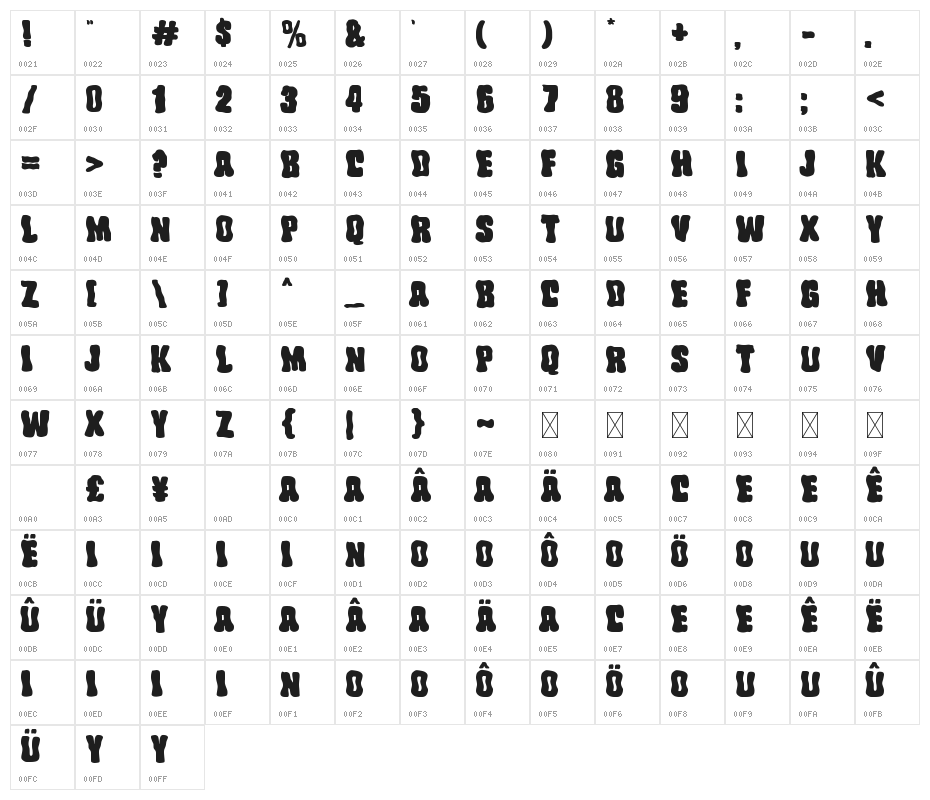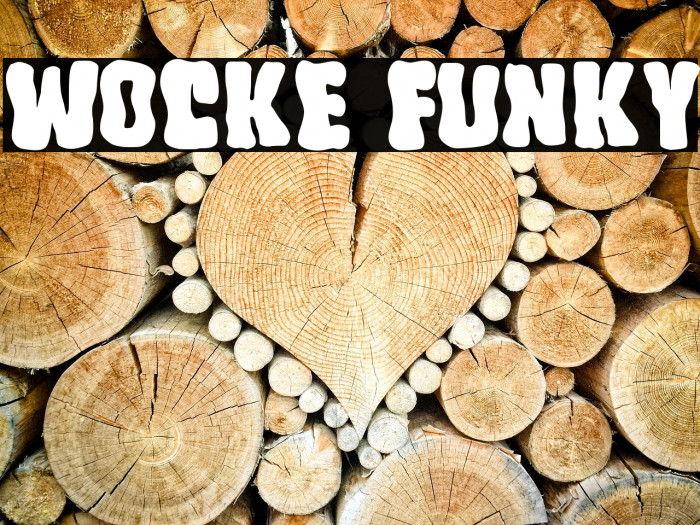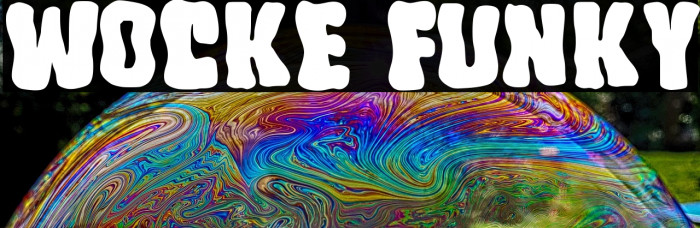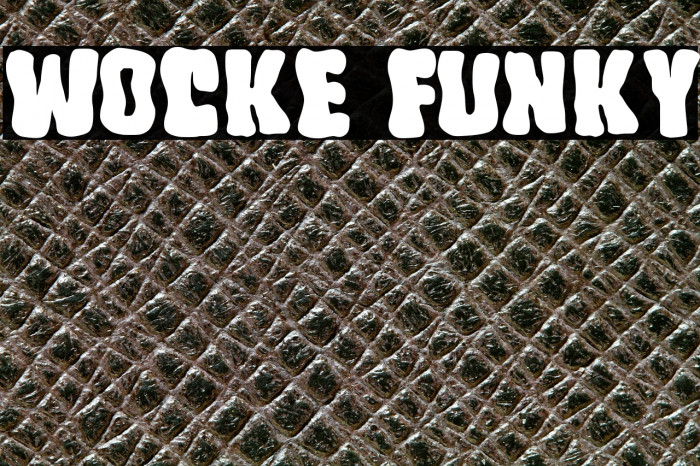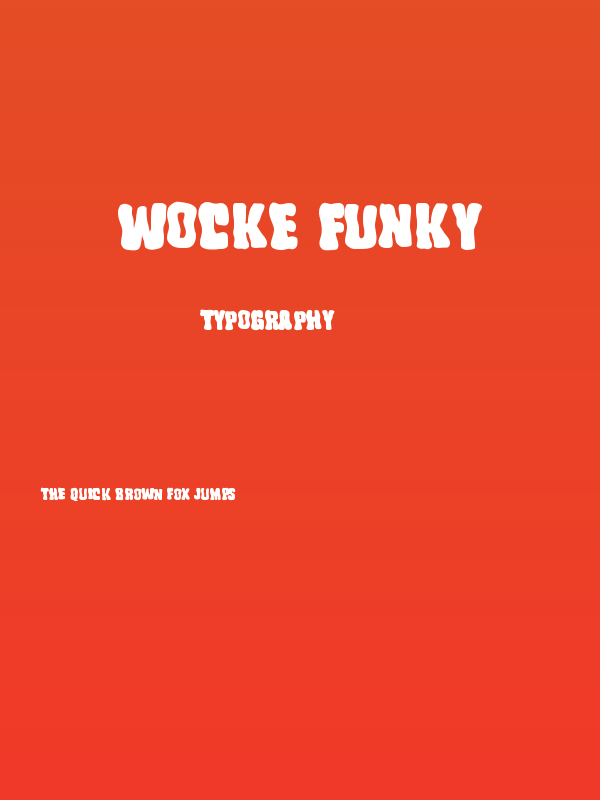
Wocke Funky Font
Wocke Funky Description
This font exhibits a bold and playful design, characterized by its thick, rounded shapes and irregular contours. The letters have a whimsical, almost cartoonish appearance, making them stand out with a strong visual presence. The strokes are consistently thick, providing a uniform weight across all characters. The overall style is reminiscent of retro or vintage designs, with a touch of modern flair. The font's unique and quirky nature makes it ideal for projects that require a fun and engaging look. Its boldness ensures readability while adding a distinctive personality to any text.
| Overall Style | Playful, Retro, Modern |
| Proposed Projects | Ideal for posters, children's books, playful branding, and retro-themed designs. |